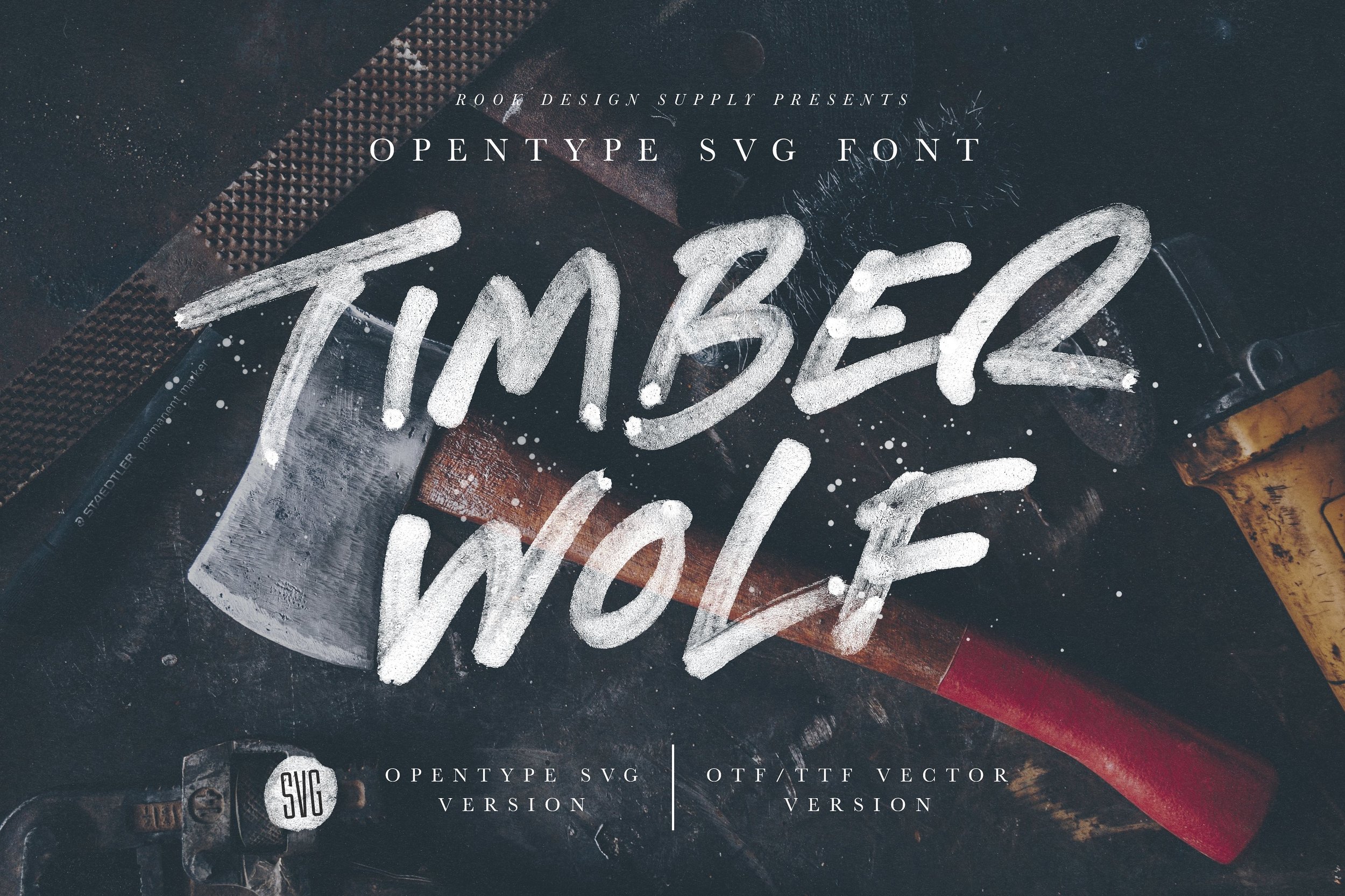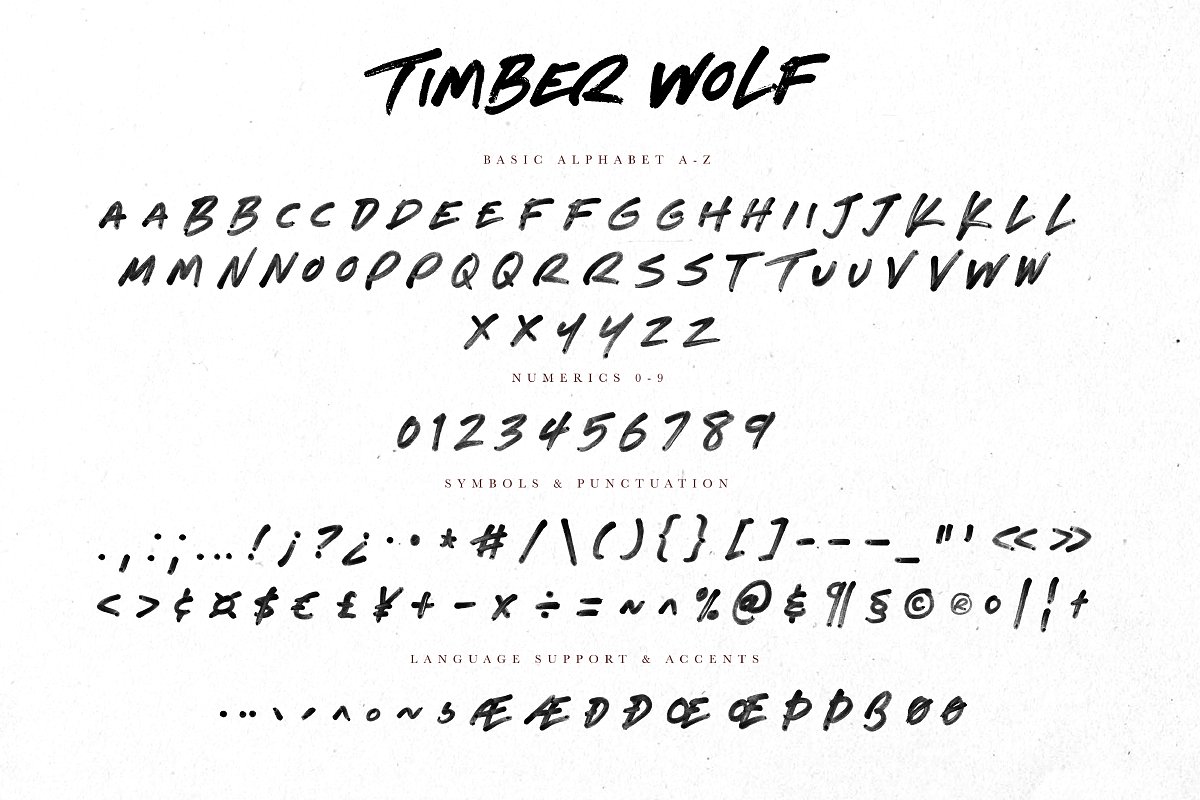
Timber Wolf SVG Font
Take your design game to the next level with a hyper realistic font that truly looks hand written. Timber Wolf uses brand new font technology that makes way for more authentic looking fonts and is sure to grab the attention of customers and designers alike.
Language Support - The OpenType SVG includes tons of language support. Check below for a list of what languages are included. In addition, there are tons of symbols and punctuation glyphs included. We wanted to make sure we didn't leave out anything important!
French, Spanish, English, Catalan, Galician, Basque, Portuguese, Italian, Albanian, Afrikaans, Dutch, German, Danish, Swedish, Norwegian, Finnish, Faroese, Icelandic, Irish and Scottish.